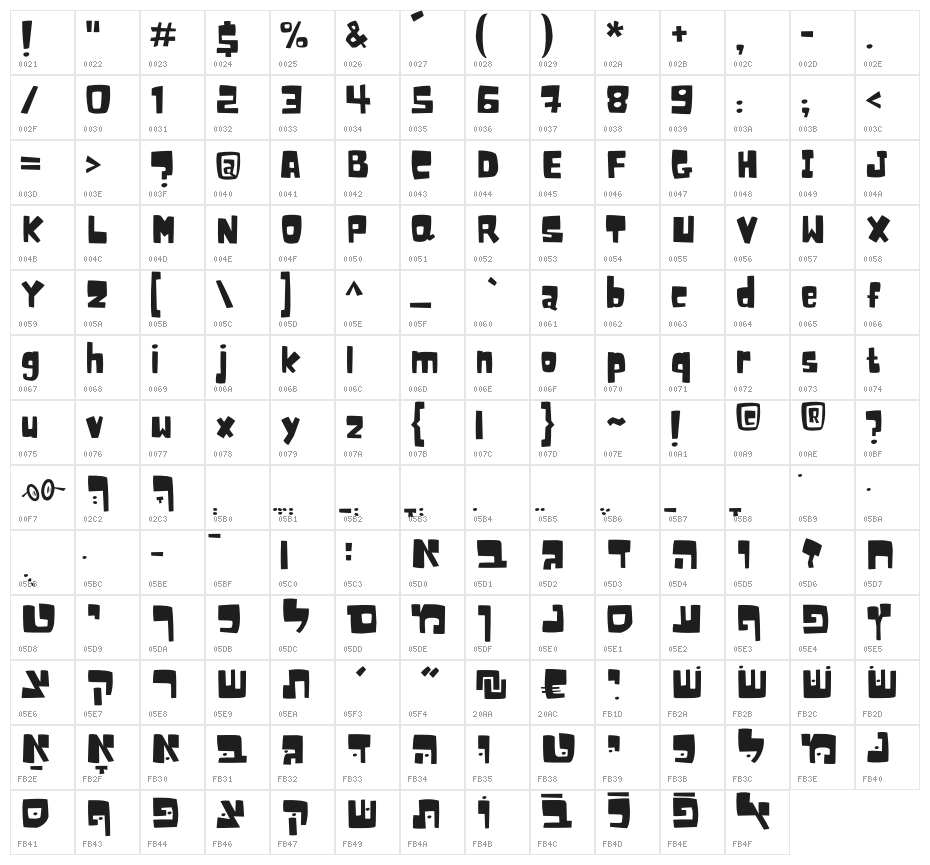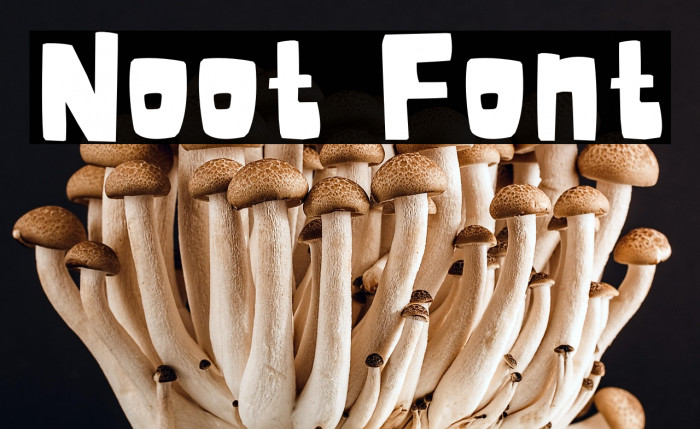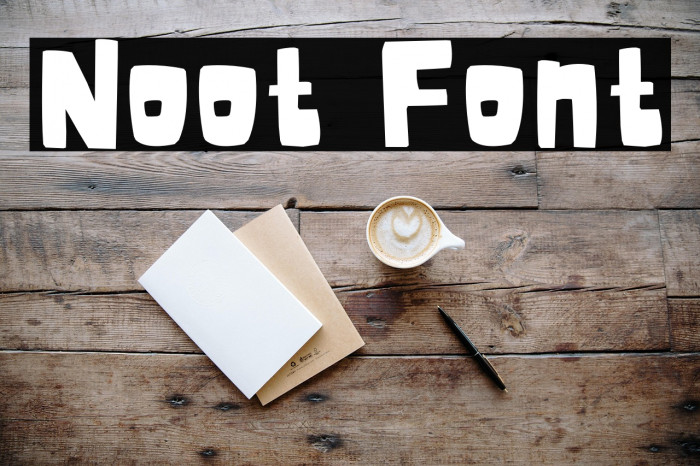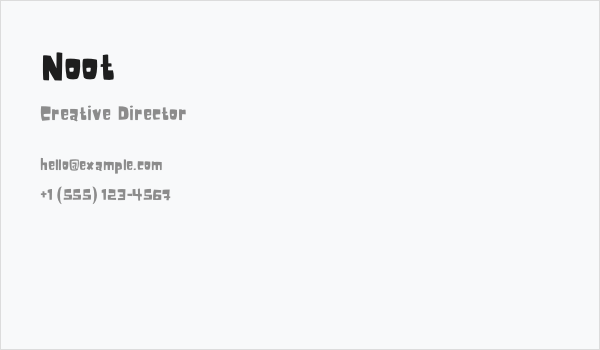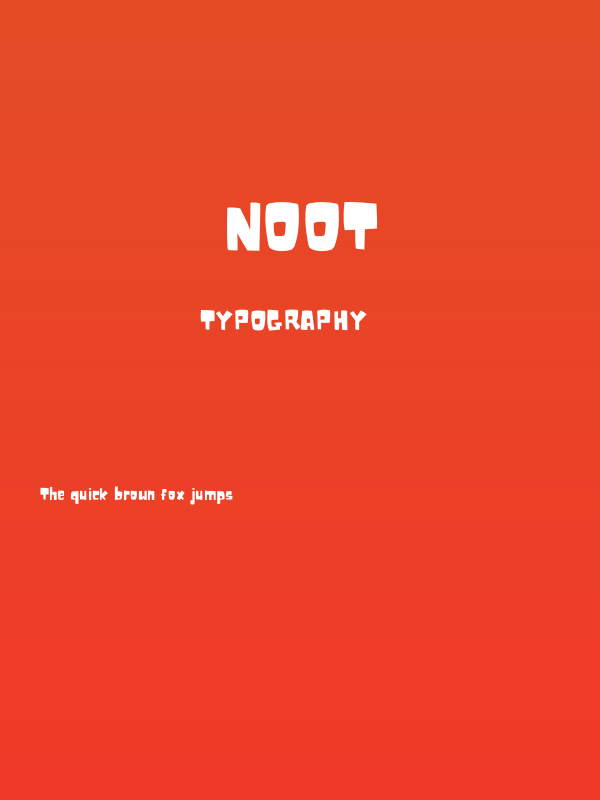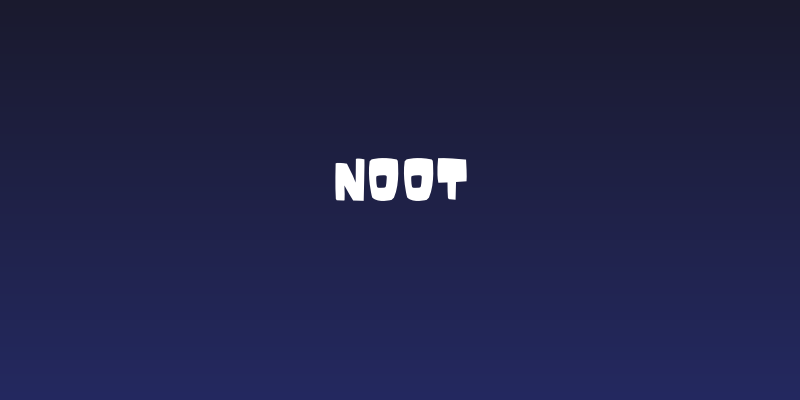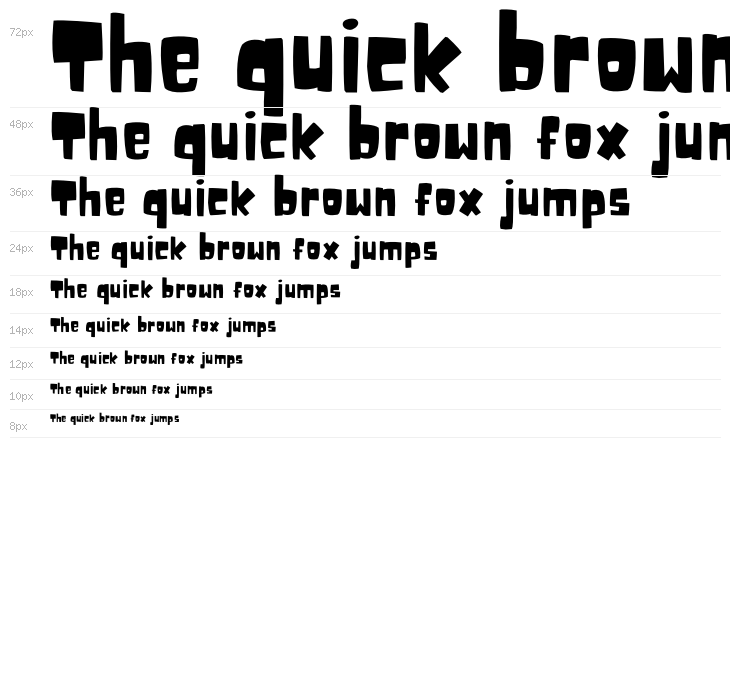
Noot Font
Noot Description
This font features a bold, playful design with irregular, chunky shapes that give it a unique and whimsical appearance. The characters are slightly uneven, adding a hand-drawn feel to the overall style. The uppercase and lowercase letters maintain a consistent thickness, contributing to a cohesive look. The numbers and special characters follow the same playful aesthetic, making the font suitable for creative and informal projects. Its boldness ensures high visibility, while the quirky design adds character and charm.
| Overall Style | Playful, Whimsical |
| Proposed Projects | Ideal for children's books, playful branding, posters, and creative invitations. |